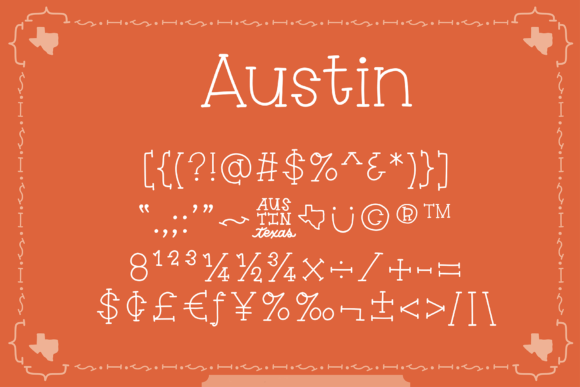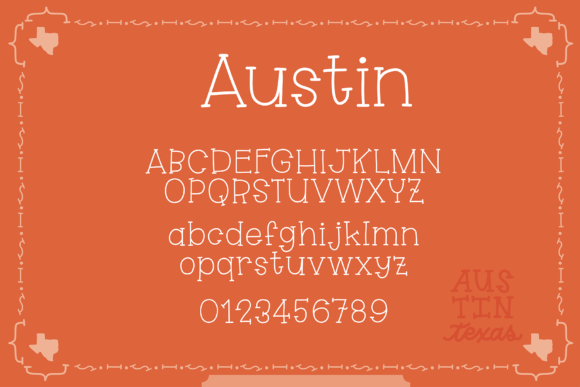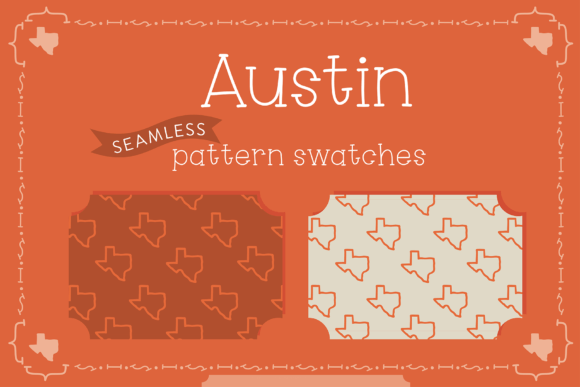
Austin Font: The Perfect Handwritten Serif for Your Design Projects
Are you looking for a font that can add a touch of warmth and friendliness to your design projects? Look no further than the Austin Font. This charming handwritten serif font is perfect for any project that requires a personal and approachable feel. In this article, we’ll take a closer look at the Austin Font, its features, and how you can use it to elevate your designs.
What is Austin Font?
Austin is a beautiful handwritten serif font that is designed to evoke a sense of warmth and friendliness. Its delicate and rounded letterforms make it perfect for use in a variety of design projects, from invitations and greeting cards to branding and packaging. The font is carefully crafted to give your designs a personal and approachable feel that will resonate with your audience.
Key Features of Austin Font
So, what makes Austin Font so special? Here are some of its key features:
- Handwritten serif font: Austin Font is a handwritten serif font that is designed to look like it was written with a pen or pencil. This gives it a personal and organic feel that is perfect for a variety of design projects.
- Delicate and rounded letterforms: The letterforms in Austin Font are delicate and rounded, which gives the font its warm and friendly feel.
- Playful touch: Austin Font has a playful touch that makes it perfect for use in designs that require a bit of whimsy and personality.
- High-quality design: The font is carefully designed to ensure that it is of high quality and looks great in a variety of sizes and resolutions.
How to Use Austin Font in Your Designs
Now that we’ve covered the features of Austin Font, let’s take a look at how you can use it in your designs. Here are a few ideas to get you started:
- Invitations: Austin Font is perfect for use in invitations, such as wedding invitations, birthday party invitations, and graduation announcements.
- Greeting cards: The font is also great for use in greeting cards, such as thank you cards, birthday cards, and holiday cards.
- Branding: Austin Font can be used in branding projects, such as logos, business cards, and letterheads, to give your brand a personal and approachable feel.
- Packaging: The font can also be used in packaging design, such as labels and packaging inserts, to add a touch of warmth and friendliness to your products.
Tips for Using Austin Font Effectively
Here are a few tips for using Austin Font effectively in your designs:
- Use it in large sizes: Austin Font looks great in large sizes, so don’t be afraid to use it as a headline or title font.
- Pair it with other fonts: The font pairs well with other fonts, such as sans serif fonts and script fonts, so feel free to experiment with different combinations.
- Use it consistently: To get the most out of Austin Font, use it consistently throughout your design project.
In conclusion, Austin Font is a charming handwritten serif font that is perfect for any project that requires a personal and approachable feel. Its delicate and rounded letterforms make it perfect for use in invitations, greeting cards, branding, and packaging. With its high-quality design and playful touch, Austin Font is sure to elevate your designs and give them a warm and friendly feel.